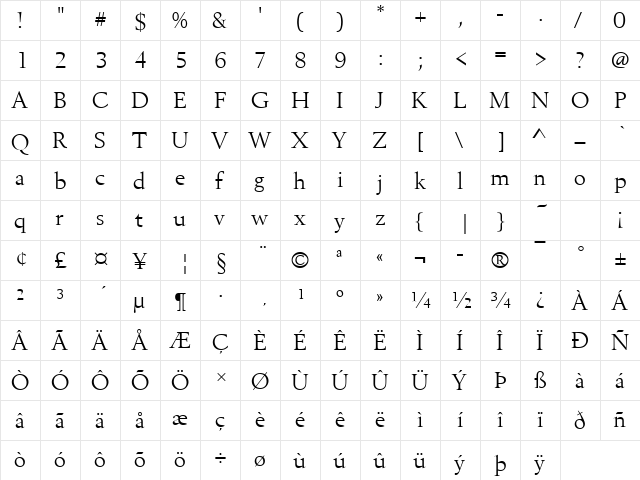
Berling Becker Regular
Design Context for Berling Becker Typeface
Berling Becker is a composed and adaptable typeface that performs quietly and consistently across a wide range of design contexts.